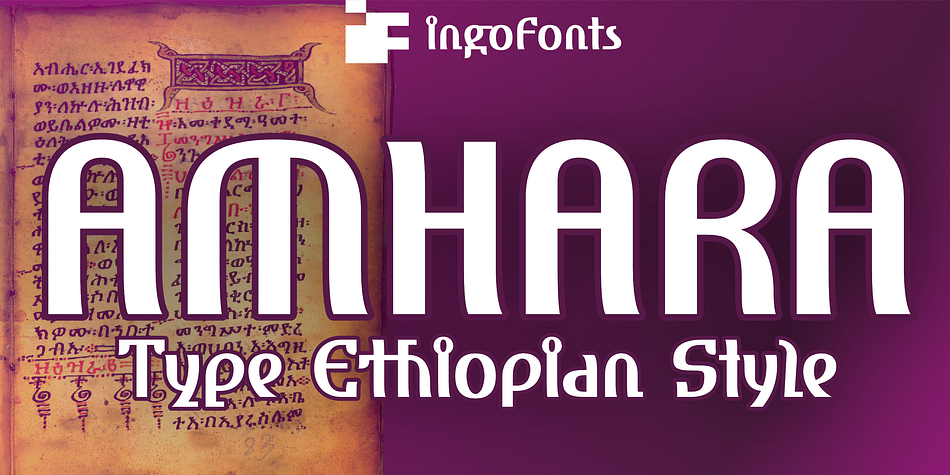
Amhara Variable Regular
Designed by Ingo Zimmerman, Amhara is a display and exotic font family. This typeface has three styles and was published by ingoFonts.
An experiment: a Latin alphabet modelled on the ethiopian Ge’ez script
Due to a more than 1600 year Christian tradition and the close relationship to the Hellenistic Mediterranean region during late antiquity, there are borrowings from Greek which can be recognized in the ethiopian Amharic script.  Because Amharic is traditionally written with an expanded pen tip, it shows the typical ductus also characteristic of the uncial scripts of late antiquity and the early Middle Ages. So this font Amhara has a somewhat sacramental effect. And, although the individual forms look foreign, the overall picture is strangely familiar.
Amhara includes a number of ligatures which dispose of many non-attractive letter combinations.
Stylistic alternates are available for the letters f g h p t y z.